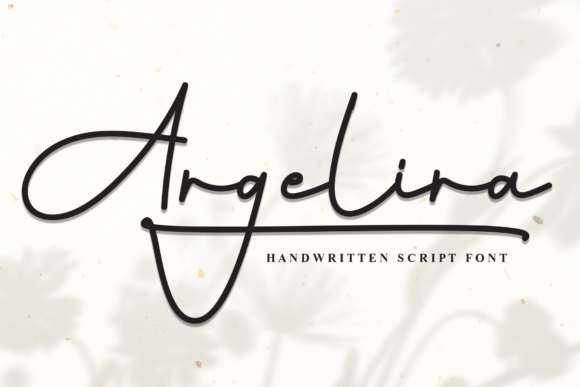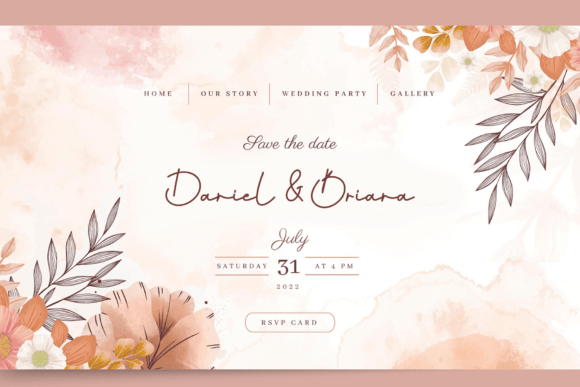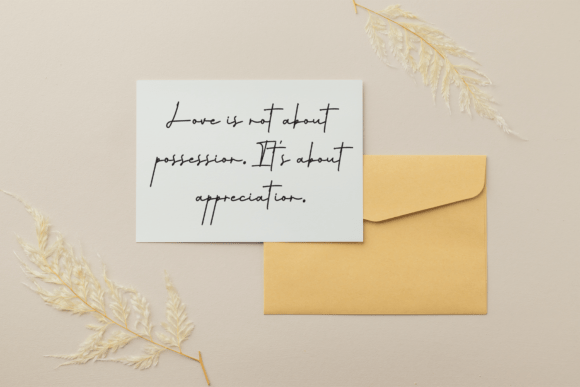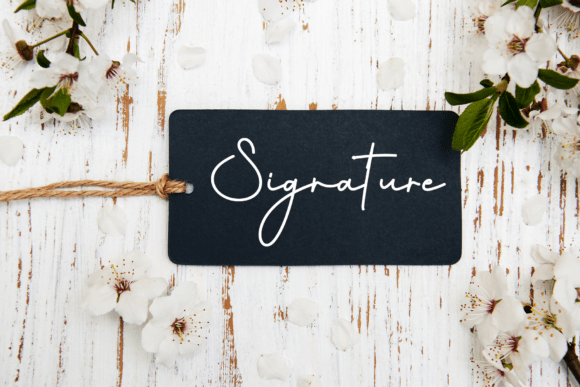
Angelina Font: Elegant Calligraphy Script for Wedding & Logo Design
About the Angelina Font
From logos to headlines, the Angelina Font is the perfect choice for making a lasting impression. Angelina is a sleek and graceful handwritten script font that captures the effortless beauty of modern calligraphy. With its flowing lines, long elegant strokes, and a signature-style underline, this typeface radiates sophistication and charm. Perfect for logos, branding, wedding stationery, or personal quotes, Angelina adds a refined yet approachable personality to any design.
Angelina Font Usage Examples
Angelina Font Example